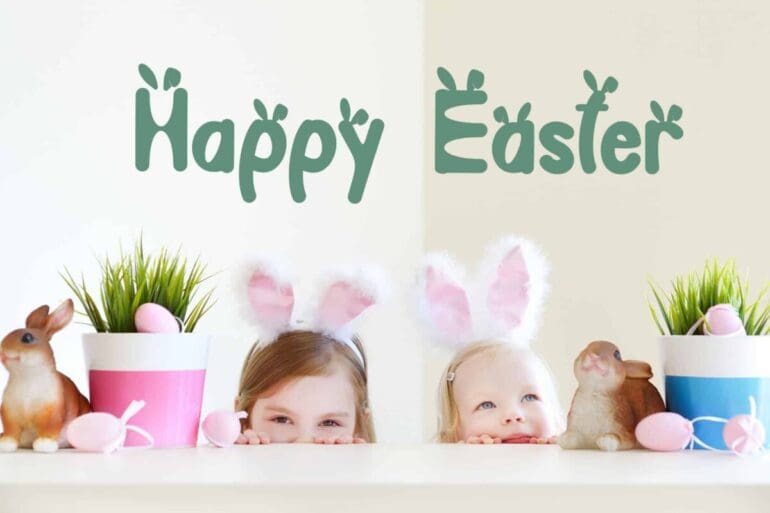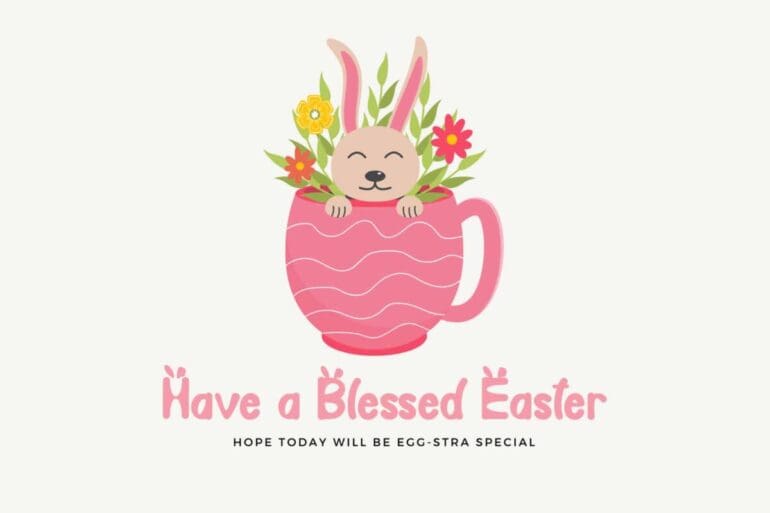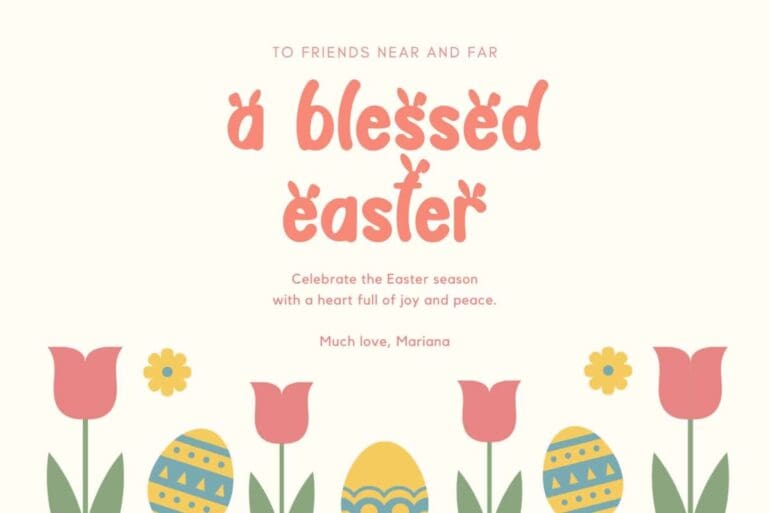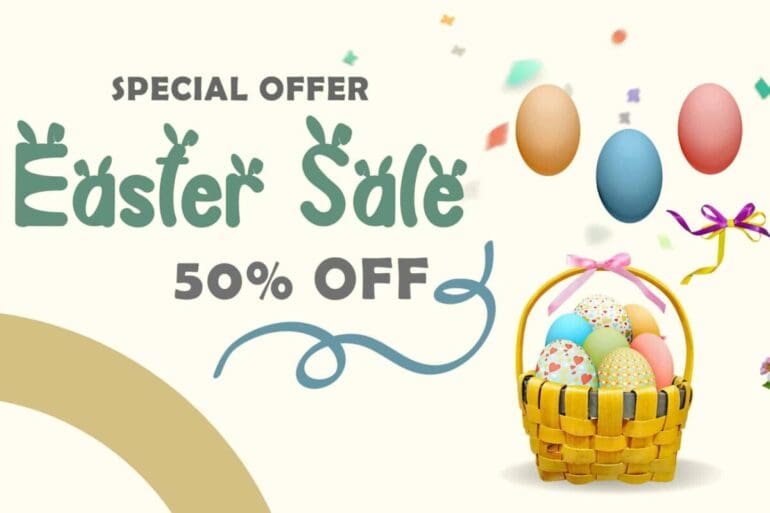
Hola Easter Font
Hola Easter is a special Easter display font. This font is very unique with the rabbit ears character on the letters. Equipped with uppercase letters, lowercase letters, uppercase rabbit ears characters, lowercase rabbit ears characters, numerals, punctuations, multilingual support. This font has been specially designed, making it easy to use. The procedure for using fonts is found in the 6th preview.